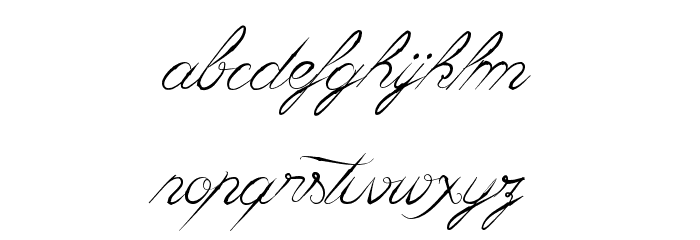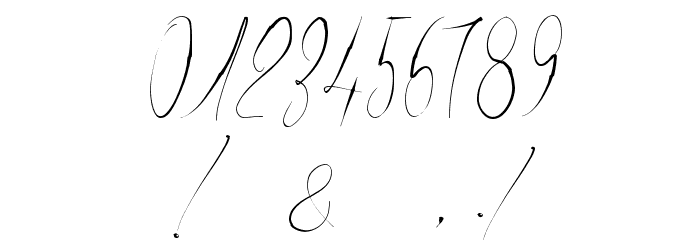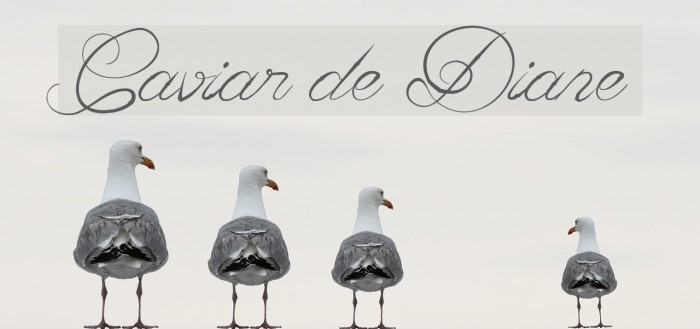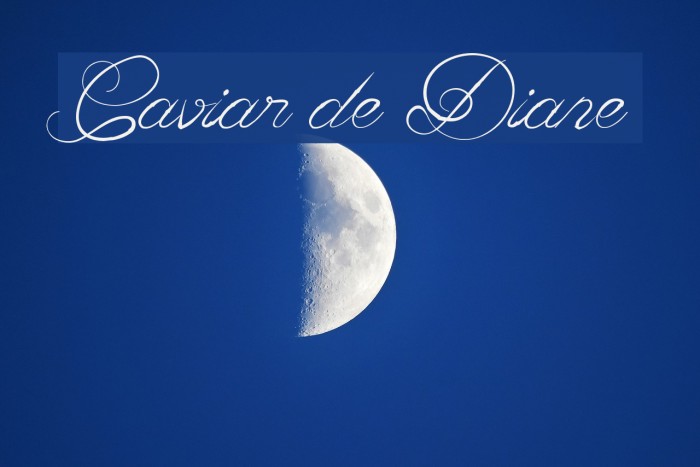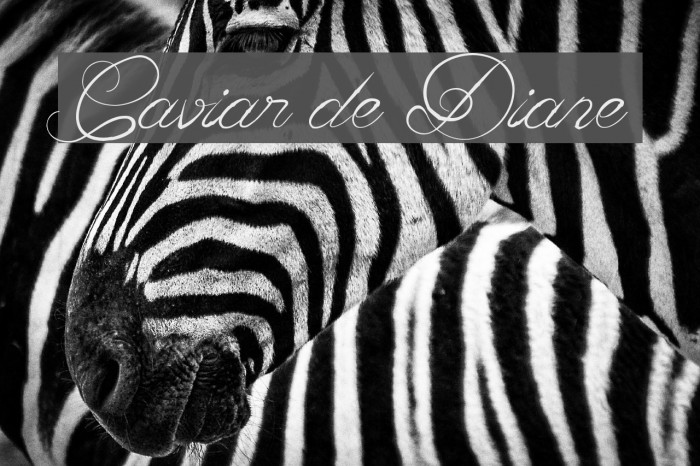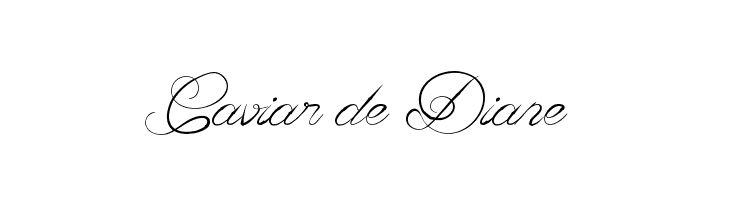
Caviar de Diane Font
This elegant script font features a sophisticated and flowing design, characterized by its delicate and intricate letterforms. The uppercase letters exhibit a graceful and ornate style with extended flourishes, while the lowercase letters maintain a smooth and connected appearance. The numerals are slender and stylish, complementing the overall aesthetic. The special characters are designed with the same attention to detail, enhancing the font's luxurious feel. This font exudes a sense of refinement and is perfect for projects that require a touch of elegance.
An elegant script font with intricate flourishes and a refined style.
- Proposed Projects: Ideal for wedding invitations, luxury branding, elegant stationery, and high-end product packaging.
- Category: Script
- Overall Style: Elegant
- Use Case: Logos, Invitations, Branding